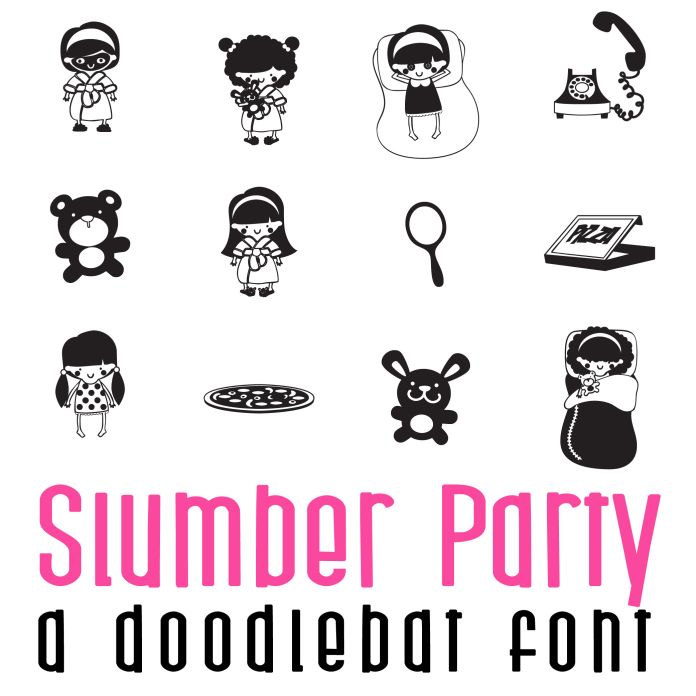
Slumber Party Doodlebat Font
This doodlebat font features 26 girls ready for a slumber party perfect for cards, crafts, gifts, decor, scrapbook pages, planner stickers, and more!